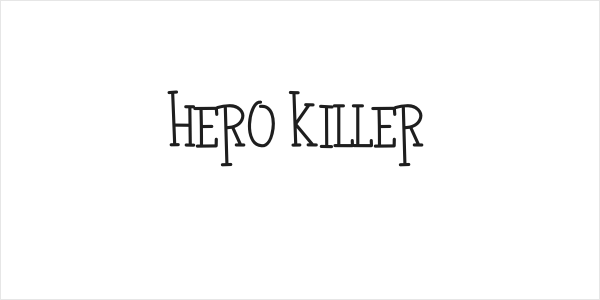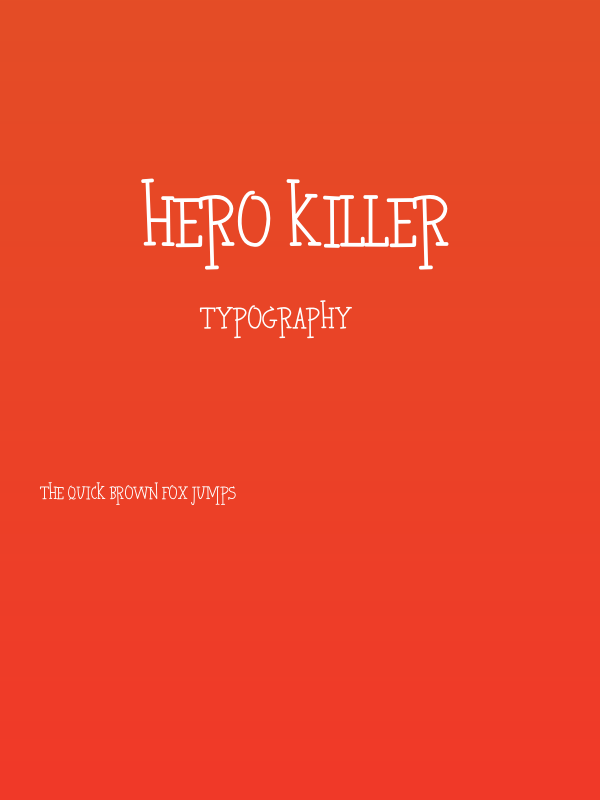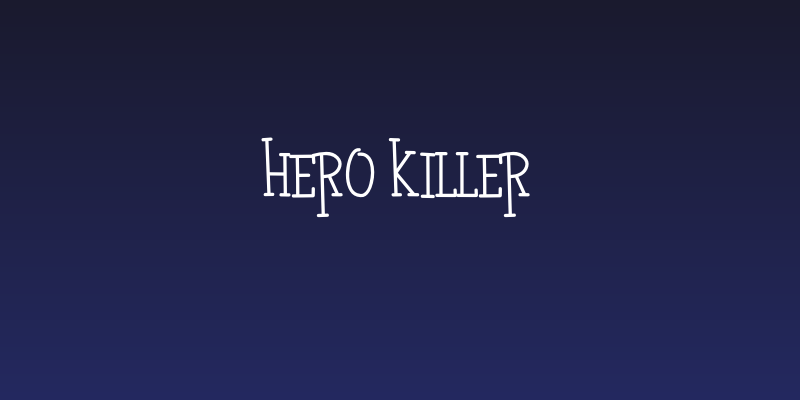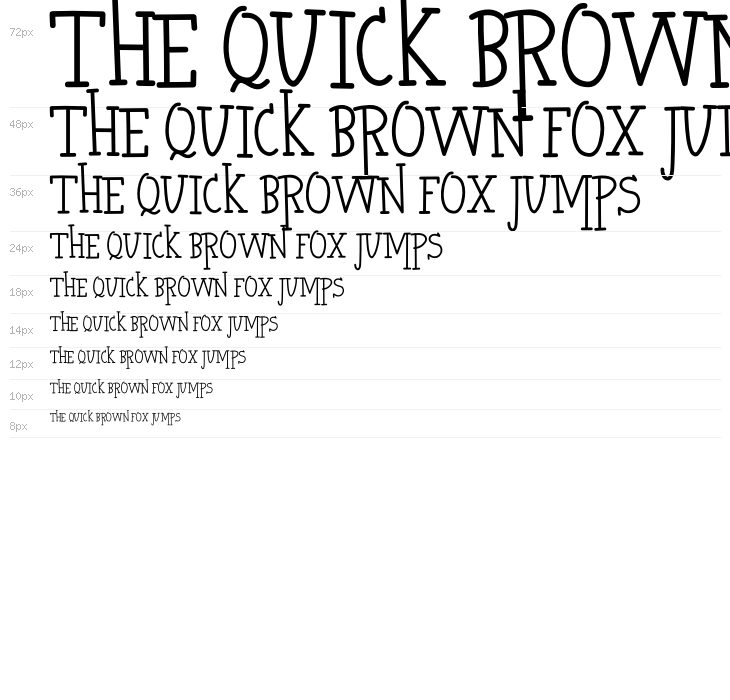
HERO KILLER Font
HERO KILLER Description
This font features a playful and quirky design with a hand-drawn aesthetic. The characters are tall and narrow, with uneven strokes that give it a whimsical and informal appearance. The uppercase letters are particularly distinctive, with exaggerated serifs and varying line thicknesses that add to its unique charm. The lowercase letters maintain a consistent style, complementing the uppercase with their own quirky flair. Numbers and special characters follow the same playful design, making this font ideal for creative and artistic projects. Its overall style is both modern and decorative, perfect for capturing attention.
| Proposed Projects | Ideal for children's books, comic strips, playful branding, and creative posters. |